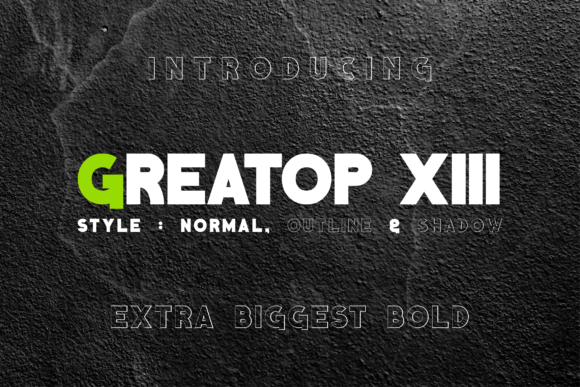
Step into the realm of enchanting storytelling with Greatop Xiii Font, the ultimate choice for crafting captivating children's book covers that ignite imagination and transport readers to magical worlds. This remarkable display font, designed by the talented Monoletter, is a symphony of elegance and whimsy, meticulously crafted to capture the essence of childhood dreams.
Greatop Xiii's sleek and sophisticated lines dance across the page, creating a captivating visual experience that draws readers into the heart of your story. Its clean curves and subtle nuances evoke a sense of wonder and adventure, inviting readers to embark on extraordinary journeys filled with vibrant characters and enchanting landscapes.
With Greatop Xiii as your font of choice, your children's book covers will radiate an aura of timeless charm and sophistication. Its bold yet elegant appearance commands attention, ensuring that your book stands out on shelves and captures the imagination of young readers. Greatop Xiii's versatility extends beyond children's literature, making it an ideal font for branding, advertising, and editorial design projects that seek to convey a sense of playfulness and creativity.
Unleash your inner storyteller and let Greatop Xiii's enchanting aura enhance your designs. This remarkable font is the perfect tool to create book covers that resonate with children, leaving a lasting impression that will inspire their imaginations for years to come.